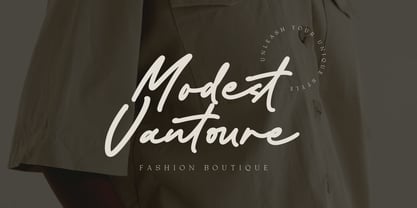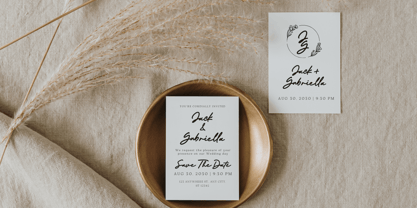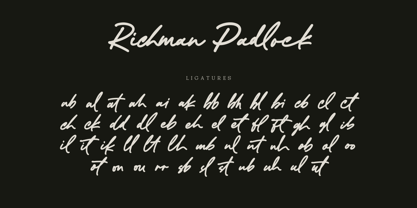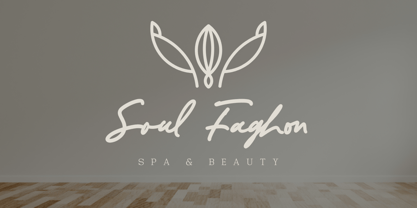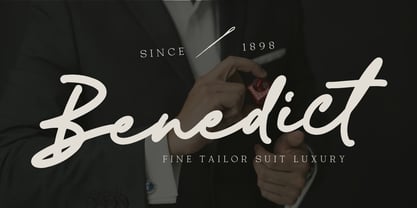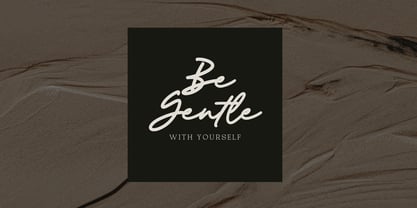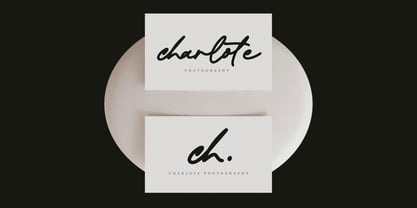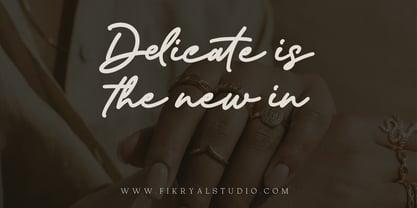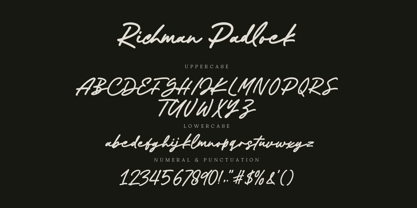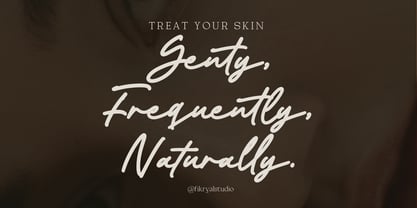
Richman Padlock
von Fikryal
Die Schriftfamilie Richman Padlock wurde von Muhammad Fikry entworfen und von Fikryal veröffentlicht. Richman Padlock enthält 1 Stile.
Richman Padlock is a beautifully crafted handwritten script font designed to bring a touch of elegance and personality to your projects. Enhanced with ligatures, this font ensures smooth and natural letter connections, making it perfect for branding, invitations, logos, social media, and more. Its casual yet refined style adds charm and authenticity to any design.